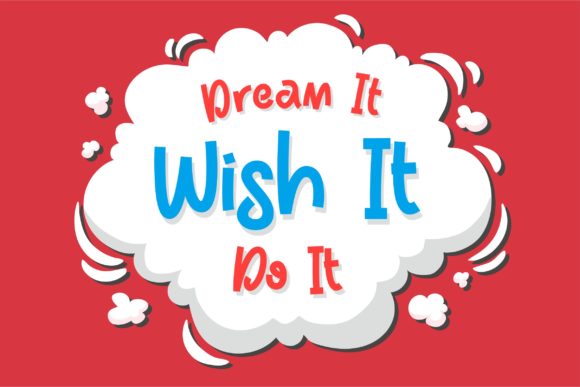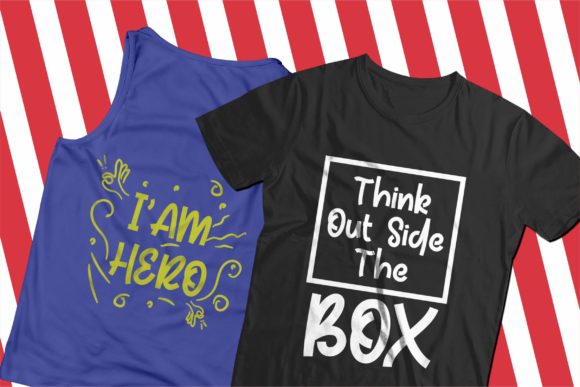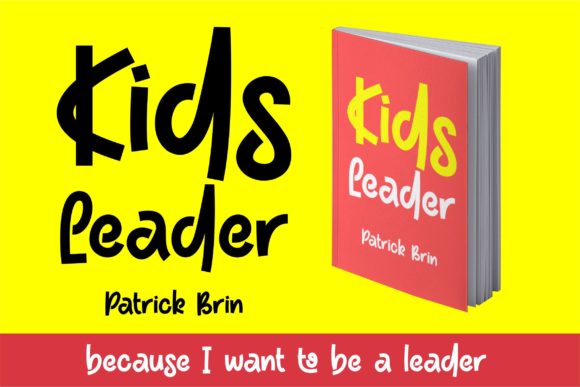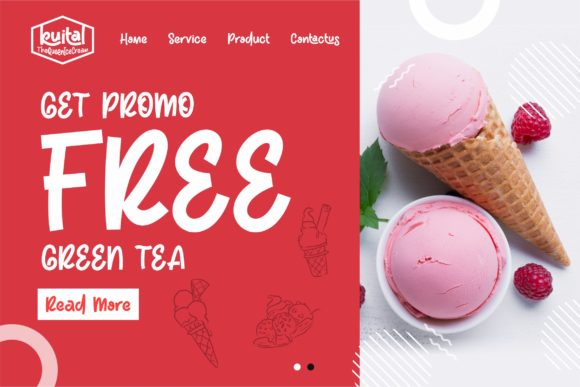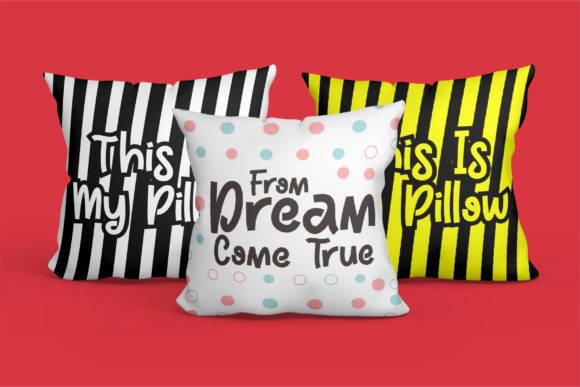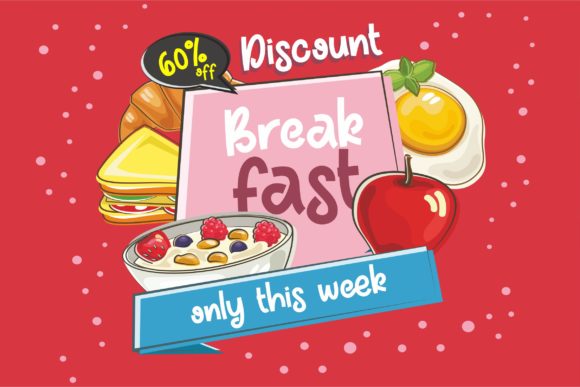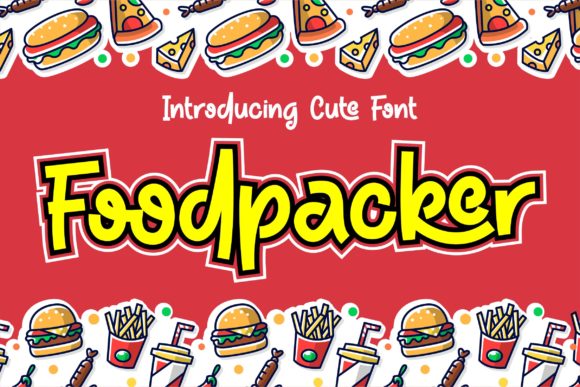
Introducing Foodpacker Font: The Cute and Quirky Display Font You Need!
Are you tired of using the same old fonts in your designs? Do you want to add a touch of joy and whimsy to your creative projects? Look no further than Foodpacker Font, a delightful display font that’s sure to make your designs stand out!
What is Foodpacker Font?
Foodpacker Font is a cute and quirky display font that’s perfect for adding a playful touch to your designs. With its unique and charming lettering style, this font is sure to capture the attention of your audience and leave a lasting impression.
Key Features of Foodpacker Font
- Cute and Quirky Design: Foodpacker Font features a one-of-a-kind design that’s both fun and playful. Its quirky style is perfect for adding a touch of personality to your designs.
- Display Font: Foodpacker Font is a display font, making it perfect for headlines, titles, and other prominent text elements in your designs.
- Easy to Read: Despite its playful design, Foodpacker Font is easy to read, making it perfect for use in a variety of design applications.
- Versatile: Foodpacker Font can be used in a wide range of design applications, from branding and advertising to packaging and more.
How to Use Foodpacker Font in Your Designs
Using Foodpacker Font in your designs is easy! Here are a few ideas to get you started:
- Add a Playful Touch to Your Branding: Use Foodpacker Font as a headline font or in your logo to add a playful touch to your branding.
- Create Eye-Catching Packaging: Use Foodpacker Font on your packaging to make it stand out on store shelves.
- Make Your Advertising Stand Out: Use Foodpacker Font in your advertising to grab the attention of your audience and leave a lasting impression.
- Add a Personal Touch to Your Crafting Projects: Use Foodpacker Font in your crafting projects, such as card making and scrapbooking, to add a personal touch.
Why Designers and Crafters Love Foodpacker Font
Designers and crafters love Foodpacker Font for its unique and playful design. Here are a few reasons why:
- Unique Design: Foodpacker Font features a one-of-a-kind design that’s sure to make your designs stand out.
- Versatile: Foodpacker Font can be used in a wide range of design applications, making it a great addition to any designer’s or crafter’s toolkit.
Tips for Getting the Most Out of Foodpacker Font
Here are a few tips for getting the most out of Foodpacker Font:
- Use it Sparingly: Foodpacker Font is a display font, so it’s best to use it sparingly to make the most impact.
- Pair it with Other Fonts: Pair Foodpacker Font with other fonts to create a unique and visually appealing design.
- Experiment with Different Colors: Experiment with different colors to find the perfect combination for your design.
Foodpacker Font is a cute and quirky display font that’s perfect for adding a playful touch to your designs. With its unique and charming lettering style, this font is sure to capture the attention of your audience and leave a lasting impression. Whether you’re a designer or crafter, Foodpacker Font is a great addition to your toolkit. So why wait? Download Foodpacker Font today and start adding a touch of joy and whimsy to your designs!